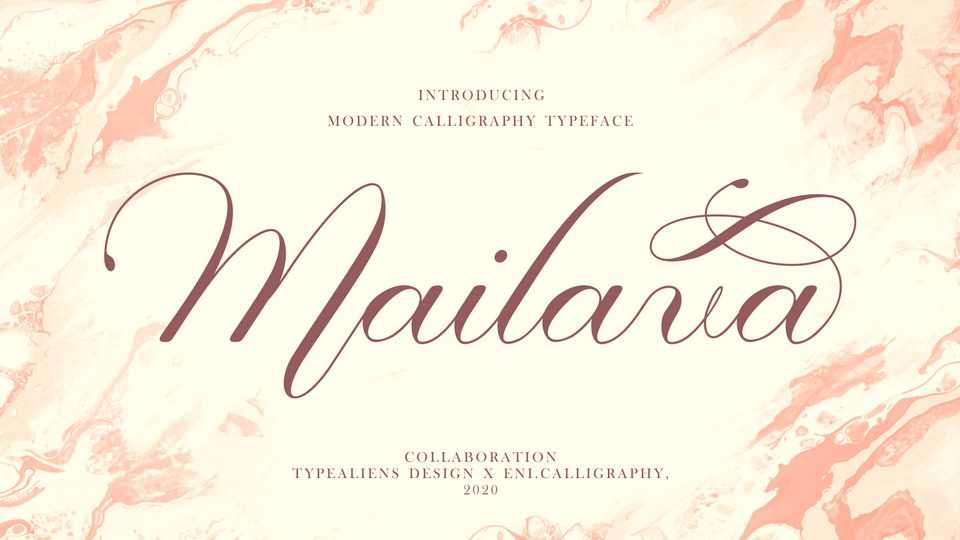
Download Mailava font, an elegant and flowing handwritten typeface with a varying baseline and smooth lines. Mailava maintains its classy calligraphic influences while feeling contemporary and fresh.